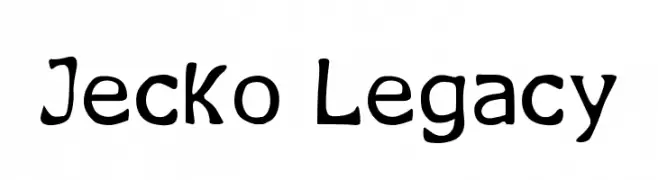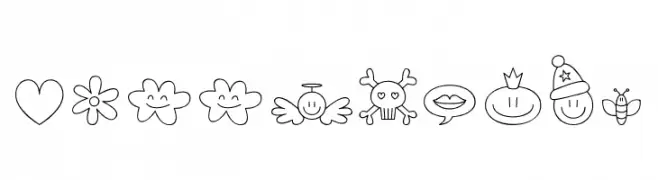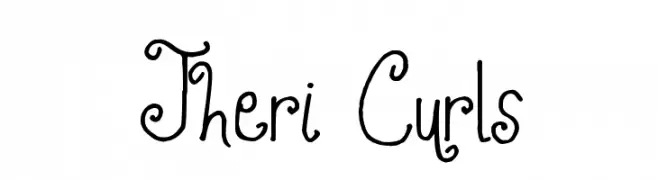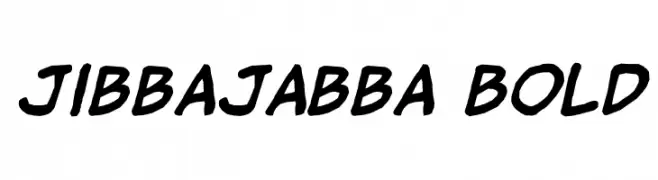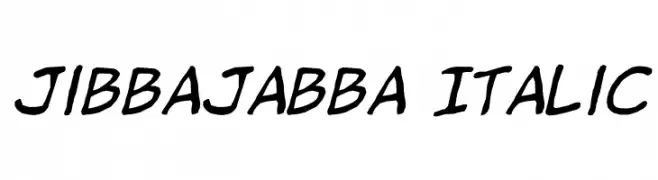
A playful, hand-drawn font with a whimsical and organic style.
A playful dingbat font with whimsical icons and symbols.
A whimsical and decorative font with playful curls and swirls.
A playful, handwritten font with bold, rounded strokes and a lively, informal style.
A bold, playful handwritten font with a dynamic and friendly style.
A bold, italicized handwritten font with a playful and dynamic style.
A bold, italicized handwritten font with a dynamic and casual style.